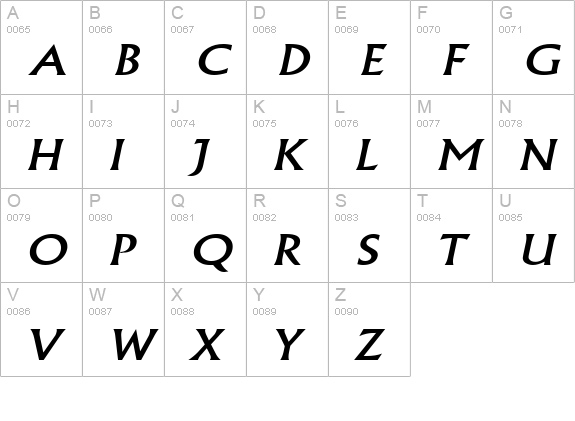
Flair Wide Italic is a distinctive, extended-width, italic variant in the Flair typeface family \xE2\x80\x94 well suited to design and typography projects.
Flair Wide Italic font is a stylish and elegant typeface that exudes sophistication and charm. Its graceful curves and unique italic styling make it perfect for adding a touch of flair to any design project. The wide letterforms give it a modern and contemporary look, making it ideal for a variety of applications, from branding to editorial design. What's even better is that Flair Wide Italic font is available for free download at FontsMarket.com. This means you can easily access this beautiful typeface without any cost, allowing you to enhance your projects with its distinctive and eye-catching appeal. Don't miss out on the opportunity to elevate your designs with the timeless elegance of Flair Wide Italic font – download it for free today!